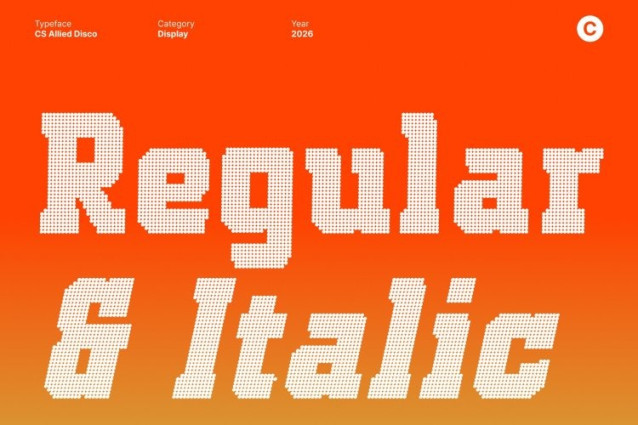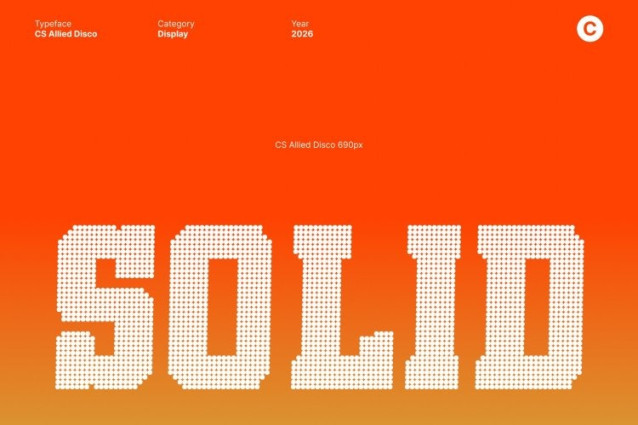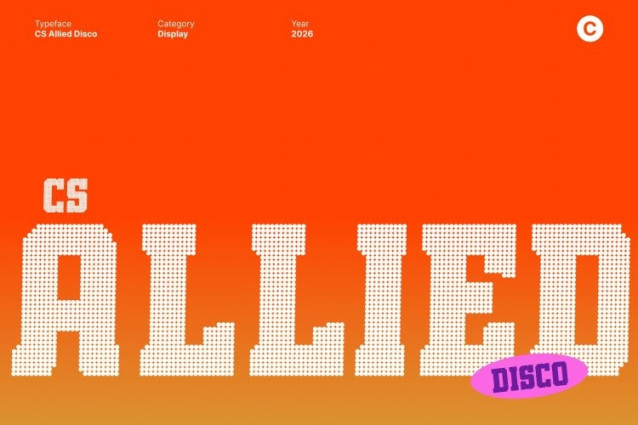
CS Allied Disco Font
CS Allied Disco Font This is a powerful slab serif font designed to deliver strength, energy, and assertiveness. Its bold structure and solid serifs create a sporty, competitive tone that feels modern and commanding. Each letter stands firm and confident, making an immediate visual impact that captures attention at a glance.
High Visibility with Disco-Driven Impact
Built for display use, this font maintains excellent readability both up close and from long distances. Thick strokes and sturdy details ensure clarity across headlines, posters, billboards, and advertisements. The added disco influence brings rhythmic energy and visual excitement, giving the font a vibrant, high-impact presence.
Modern Strength with Energetic Flair
Combining durable slab-serif construction with contemporary proportions, this font offers a bold yet refined look for high-impact branding. The disco-inspired character injects movement and celebration, transforming athletic power into something lively, festive, and visually dynamic perfect for brands that want to feel strong and exciting.
Perfect for Sports Graphics and Dynamic Promotions
This font shines in sports graphics, team branding, event posters, apparel, scoreboards, and promotional materials. Its assertive style and energetic disco vibe amplify intensity and excitement, ensuring every design feels powerful, dynamic, and ready for action on the field and under the lights.